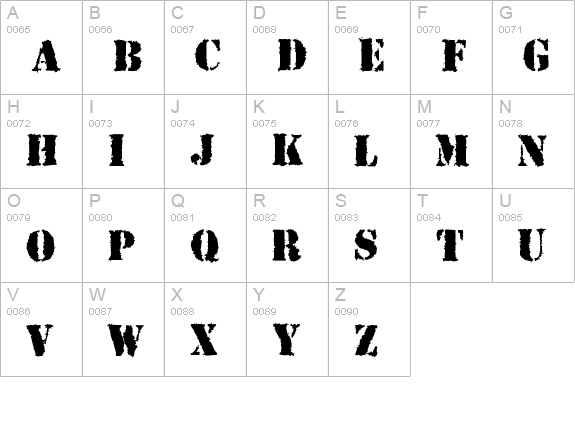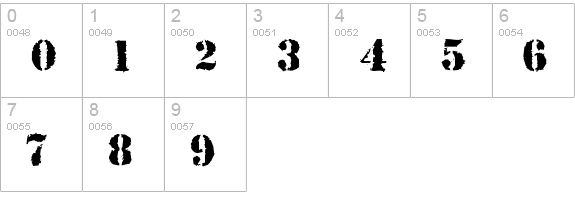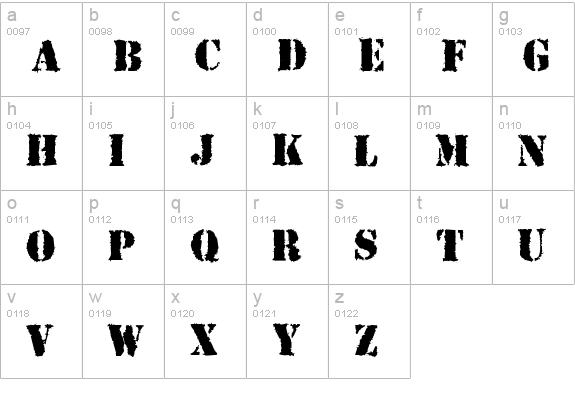
Stencil-grungy Font Details
Introducing the Stencil-grungy font - a unique and edgy typeface that combines the structured simplicity of stenciled letters with a gritty, urban grunge aesthetic. This font is perfect for projects that require a bold and impactful design, adding a touch of rawness and character to your text. Featuring sharp edges and distressed textures, the Stencil-grungy font exudes a sense of ruggedness and authenticity, making it ideal for posters, album covers, and branding materials that aim to stand out from the crowd. The best part is, this font is completely free to use and is available for download at FontsMarket.com. So go ahead and unleash your creativity with the Stencil-grungy font, and make a statement with your designs today!